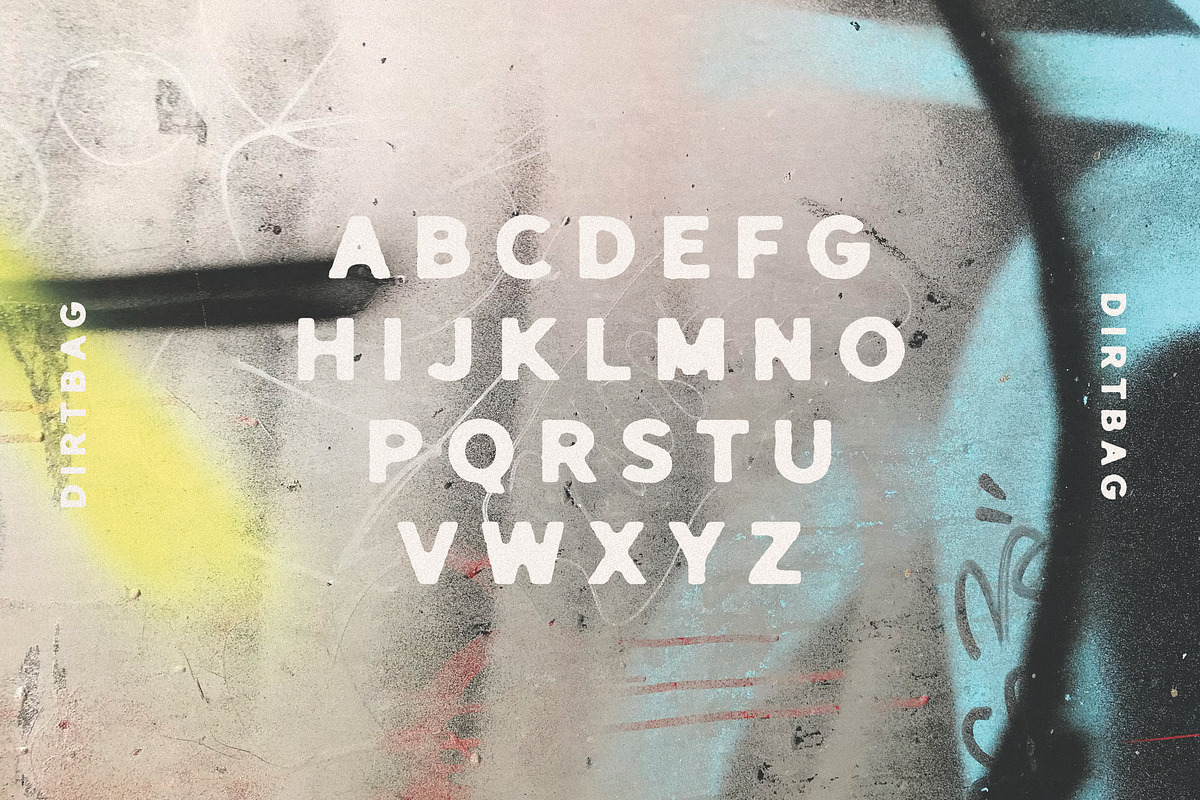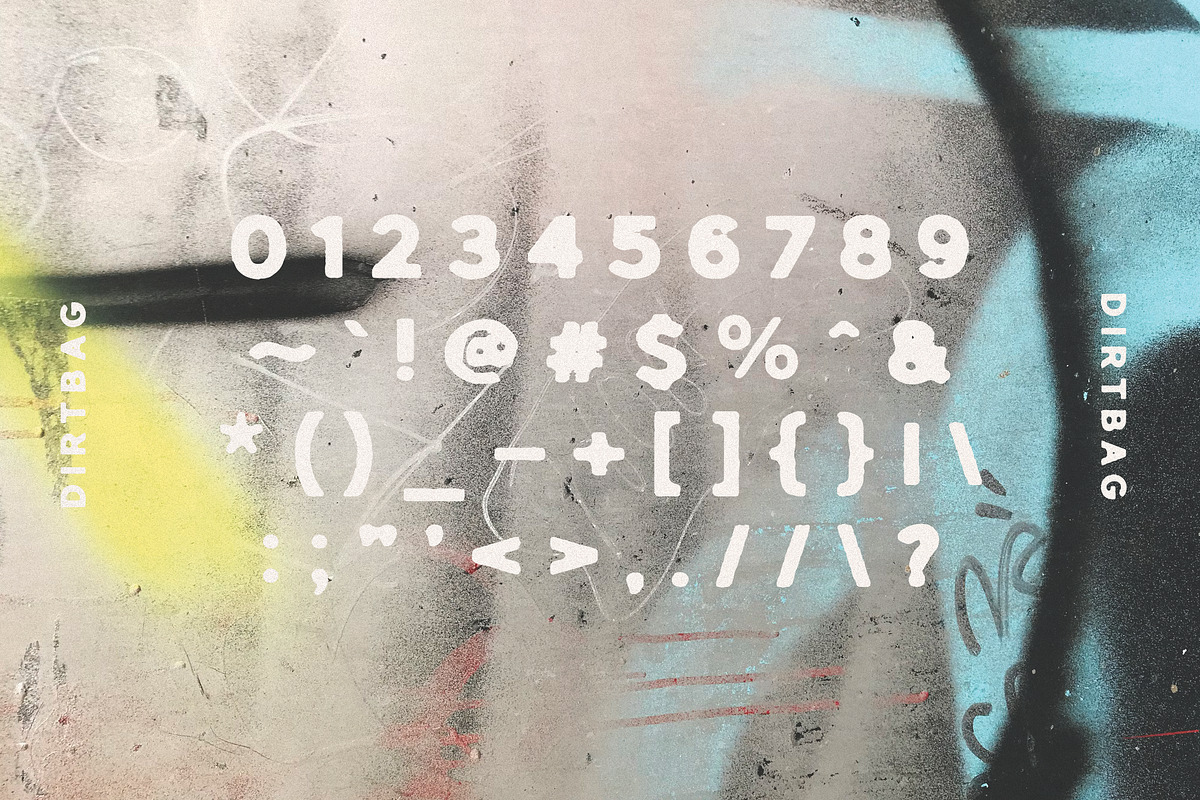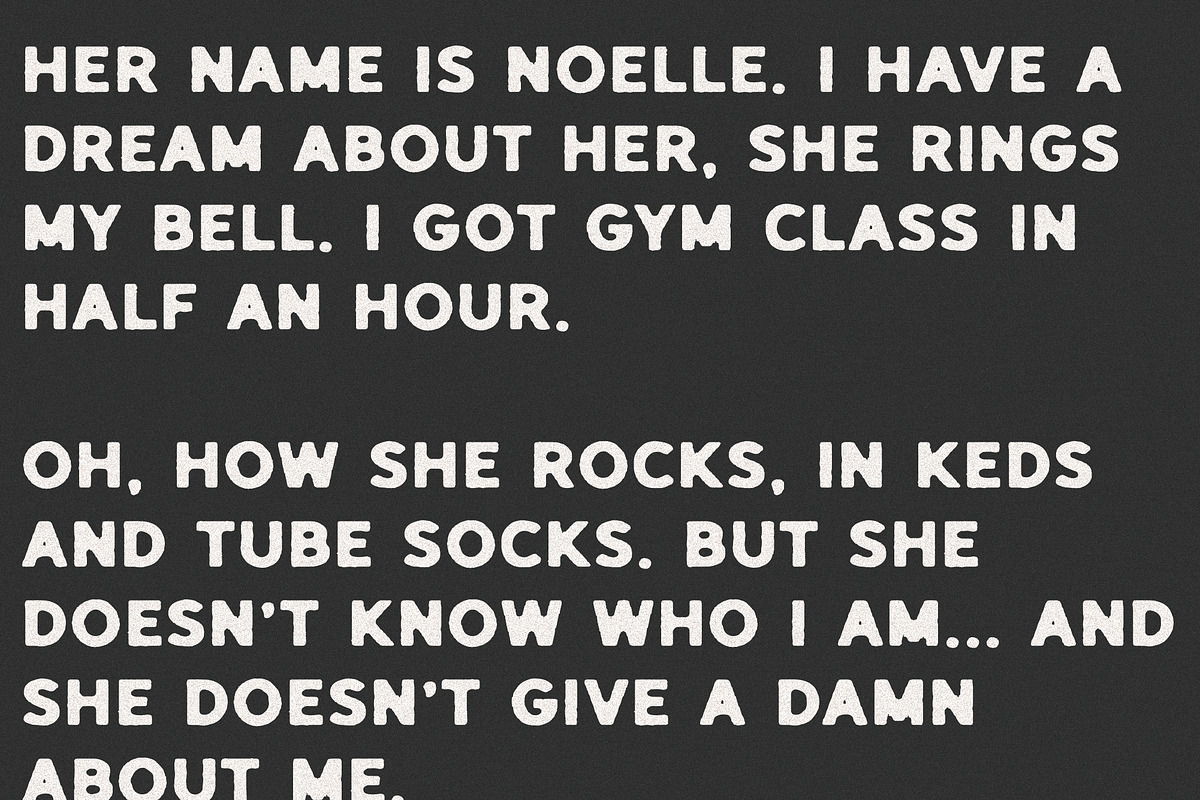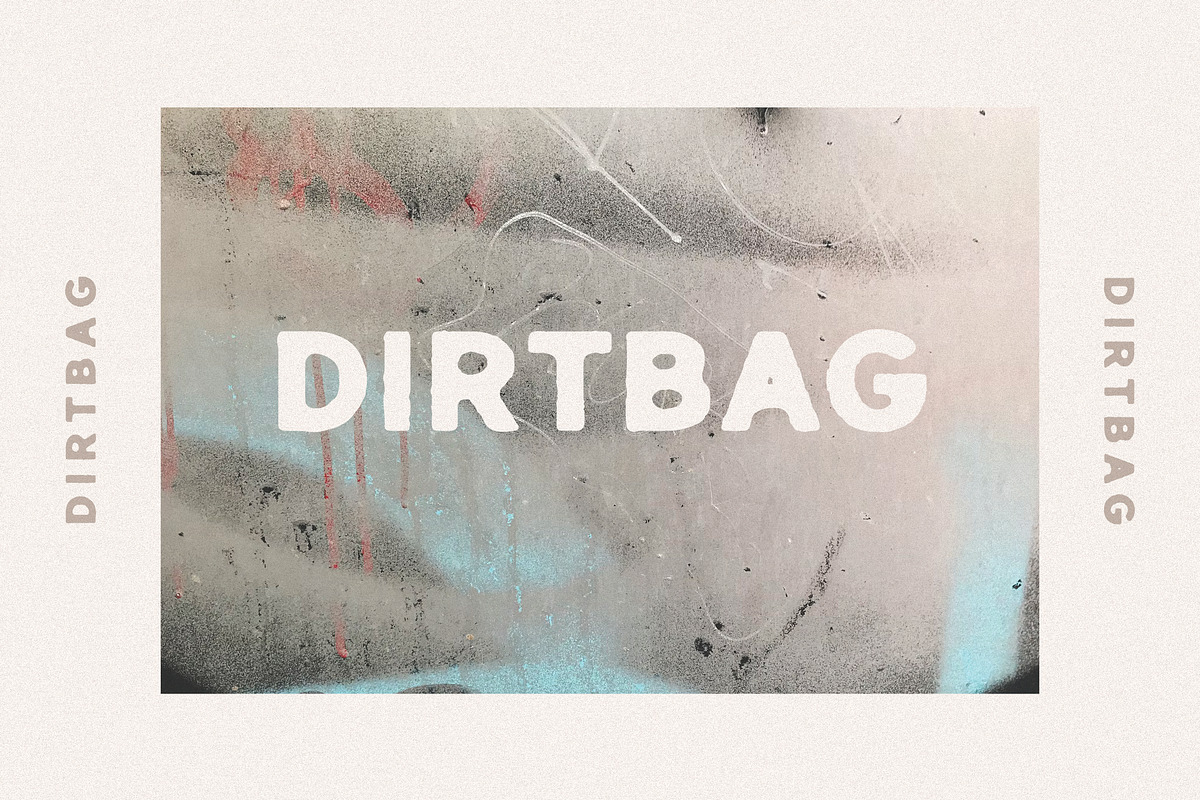
Dirtbag
Dirtbag is a grungy, eroded display font to elevate your designs - from branding, logos, and promotional materials, to instagram posts, invitations, and print-on-demand graphics.